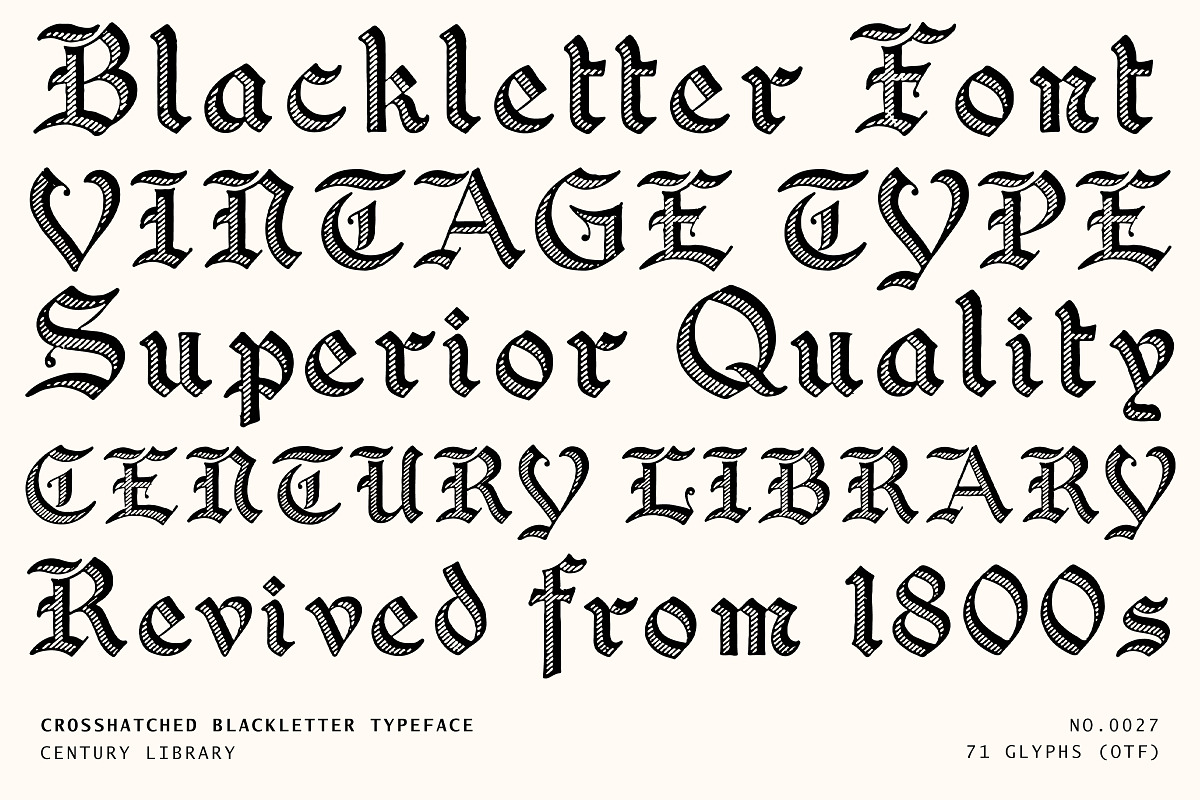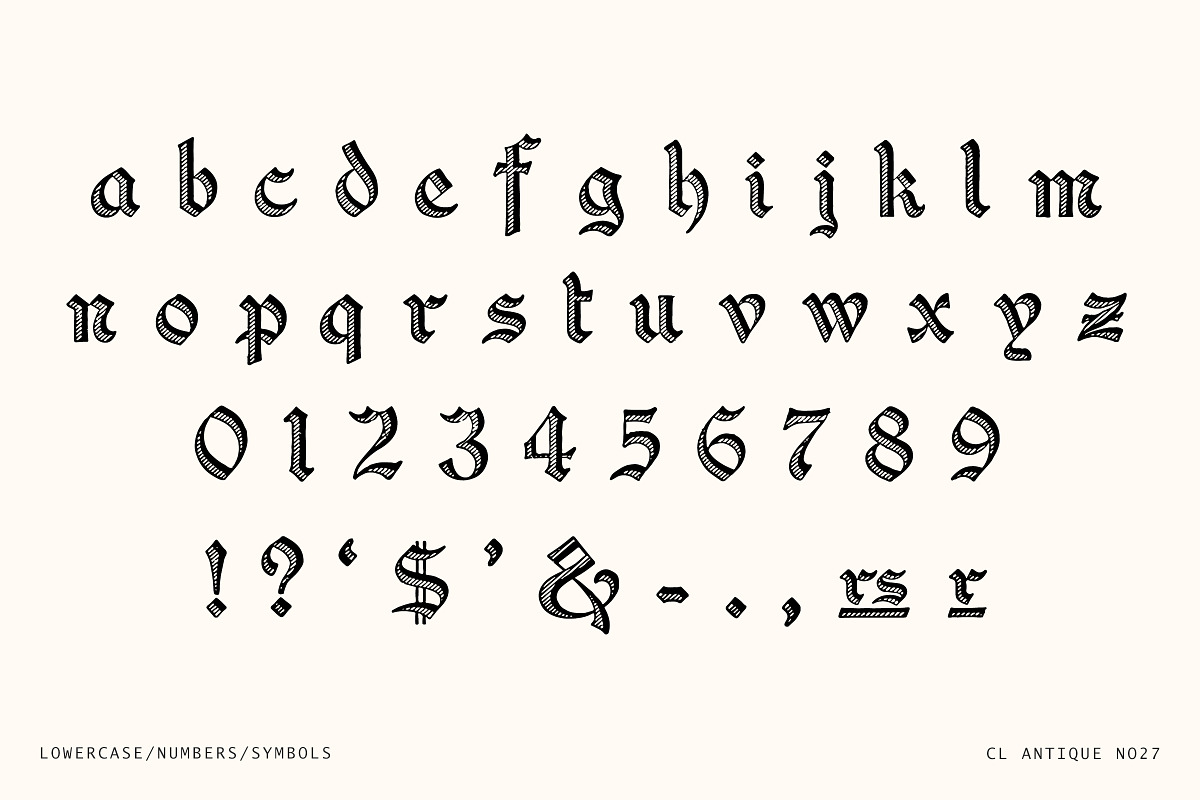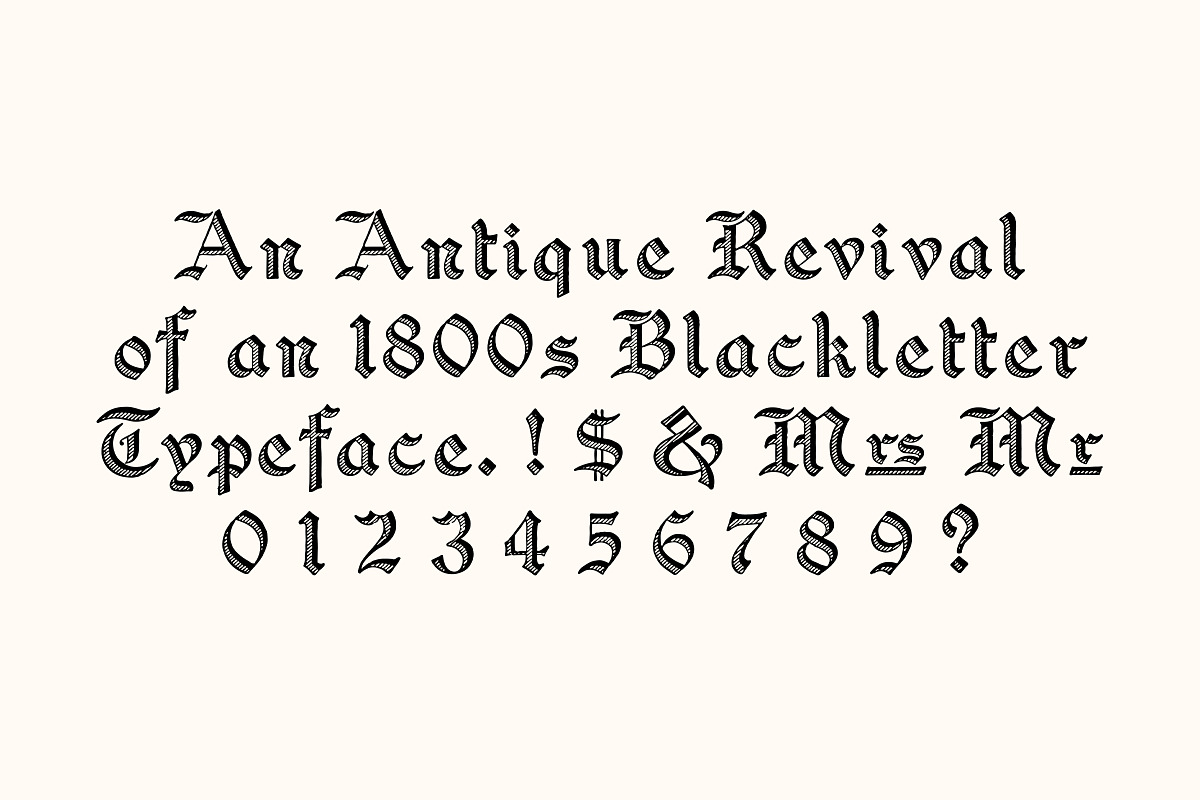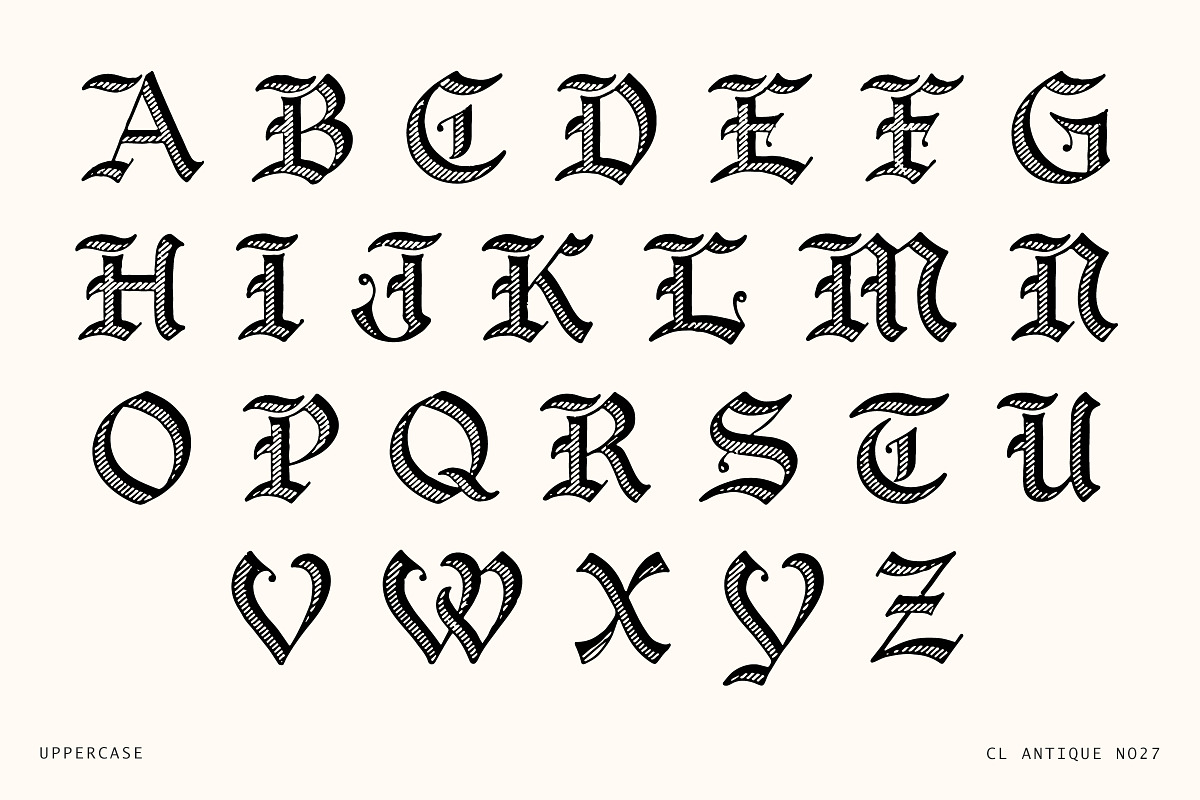
Vintage Crosshatch Blackletter Font
Meet CL Antique No.27 - a sharp, stylish blackletter pulled straight from the 1800s and finished with a bold crosshatched texture that sets it apart from the rest.
Revived from antique lettering specimens and converted into a functional OTF font, this typeface blends crisp Gothic structure with a hand-rendered fill that mimics vintage engraving techniques. It's bold without being clunky, decorative without being overdone - perfect for those designs that want to look both classic and confidently original.
Use it on posters, apparel, signage, album art, or anywhere you need a dose of typographic drama with real historical flavour.
- Based on a historical blackletter with engraved crosshatching throughout